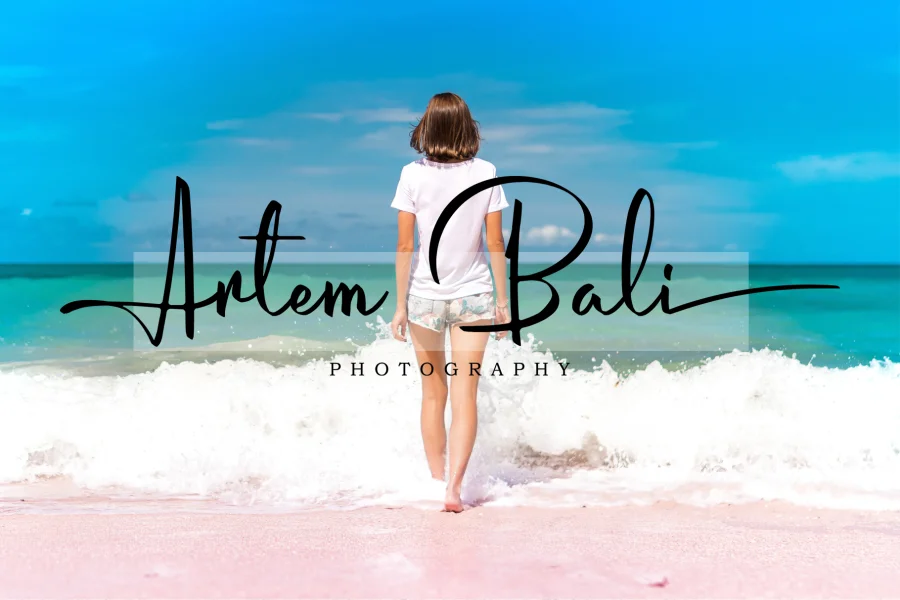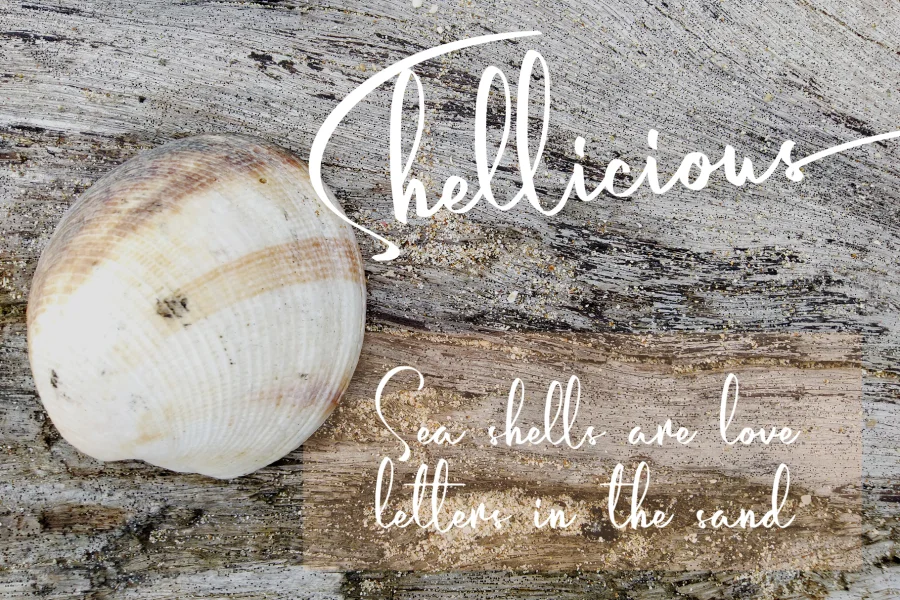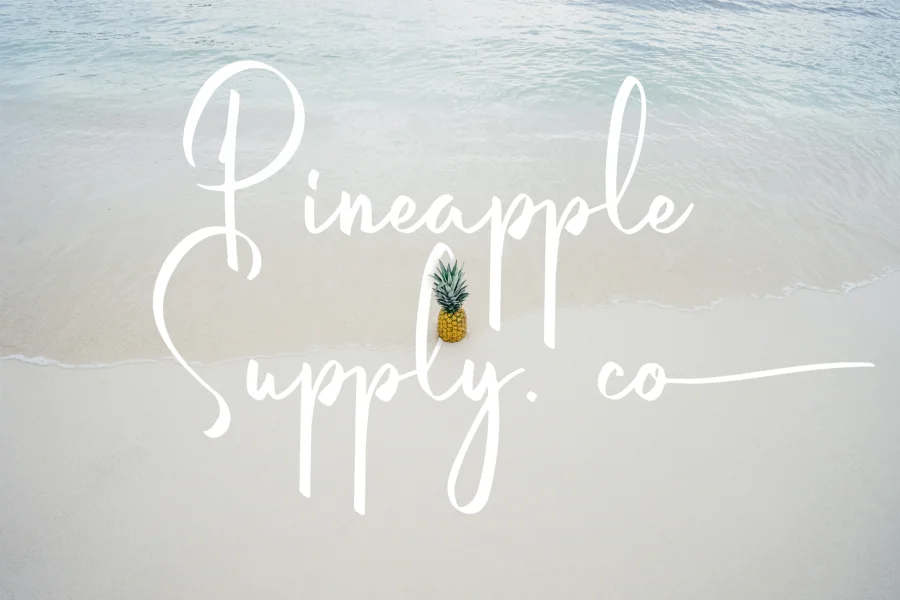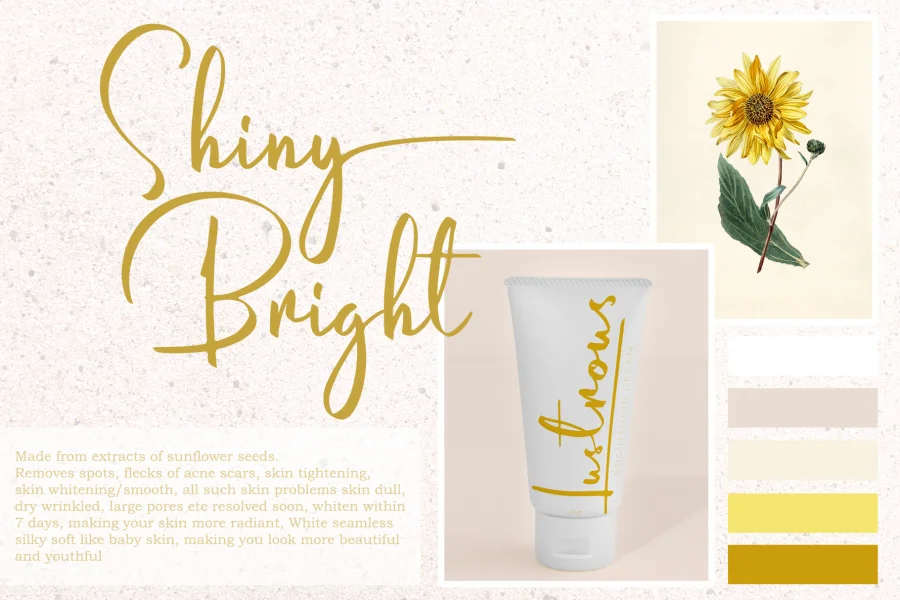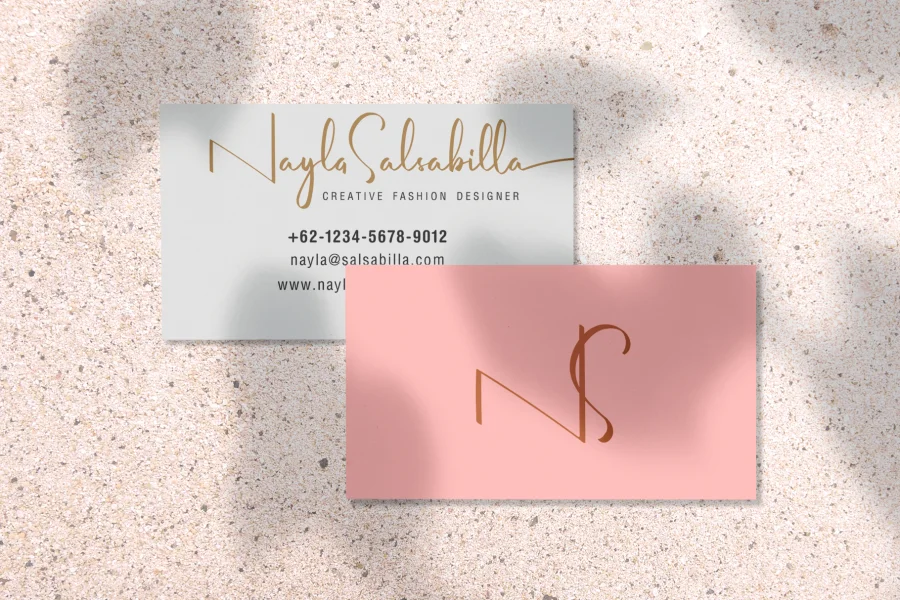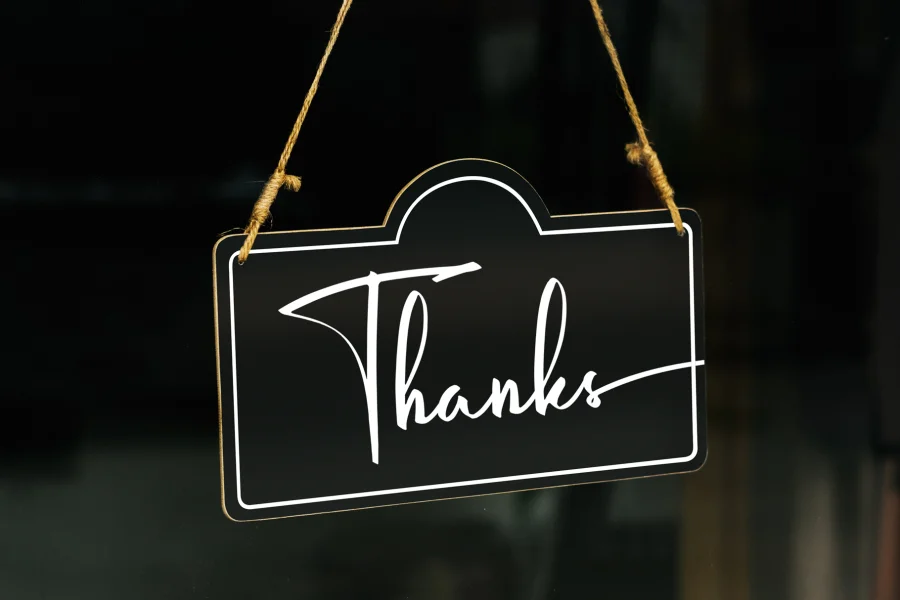
Introducing Humairah Script, a new Modern Script Calligraphy Typeface with its own unique flow and elegant personality :)
Humairah Script is a stylish calligraphy font that features a varying baseline, smooth line, modern and elegant touch. Can be used for various purposes, such as headings, signature, logos, wedding invitation, t-shirt, letterhead, signage, lable, news, posters, badges etc.